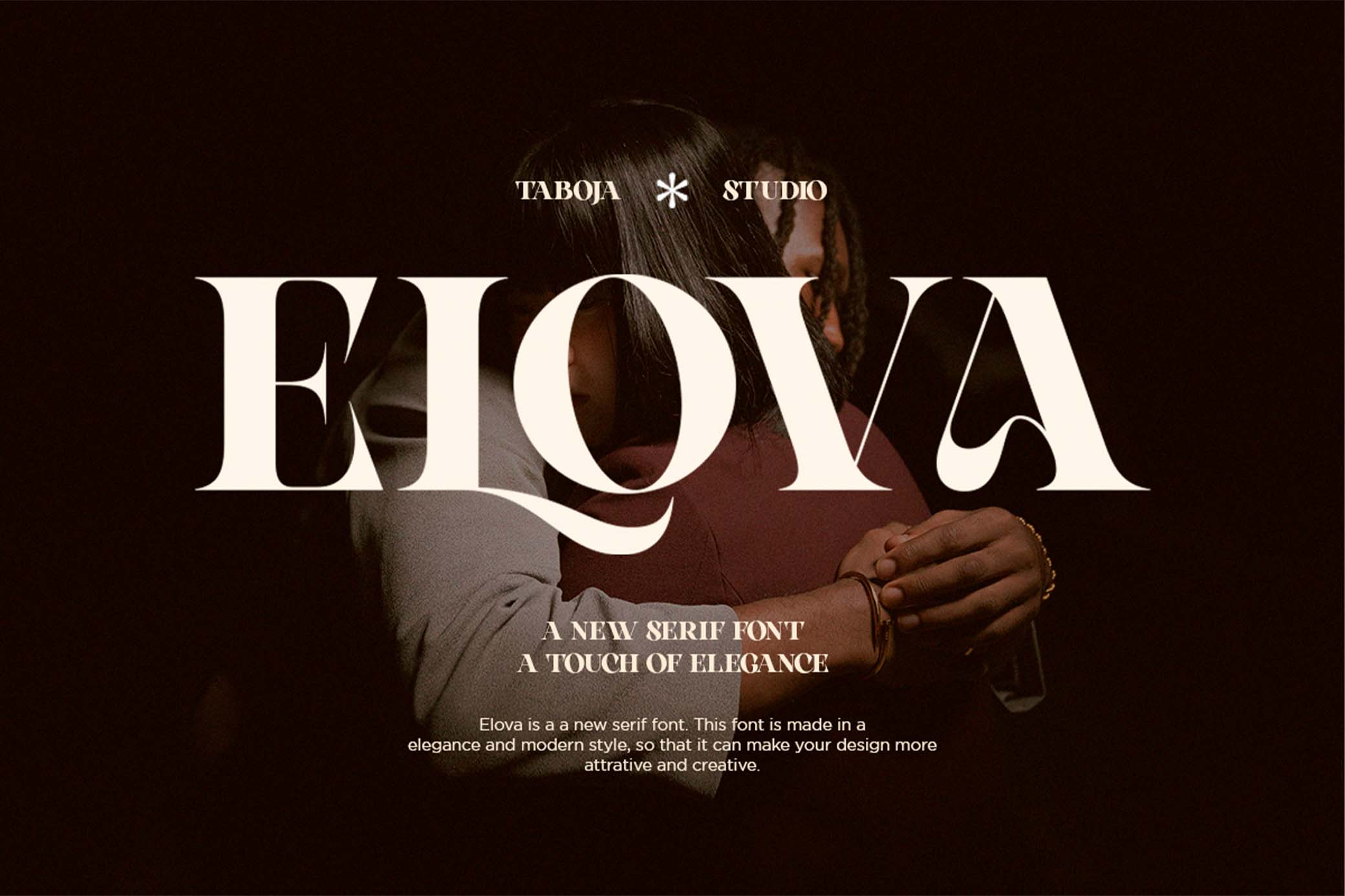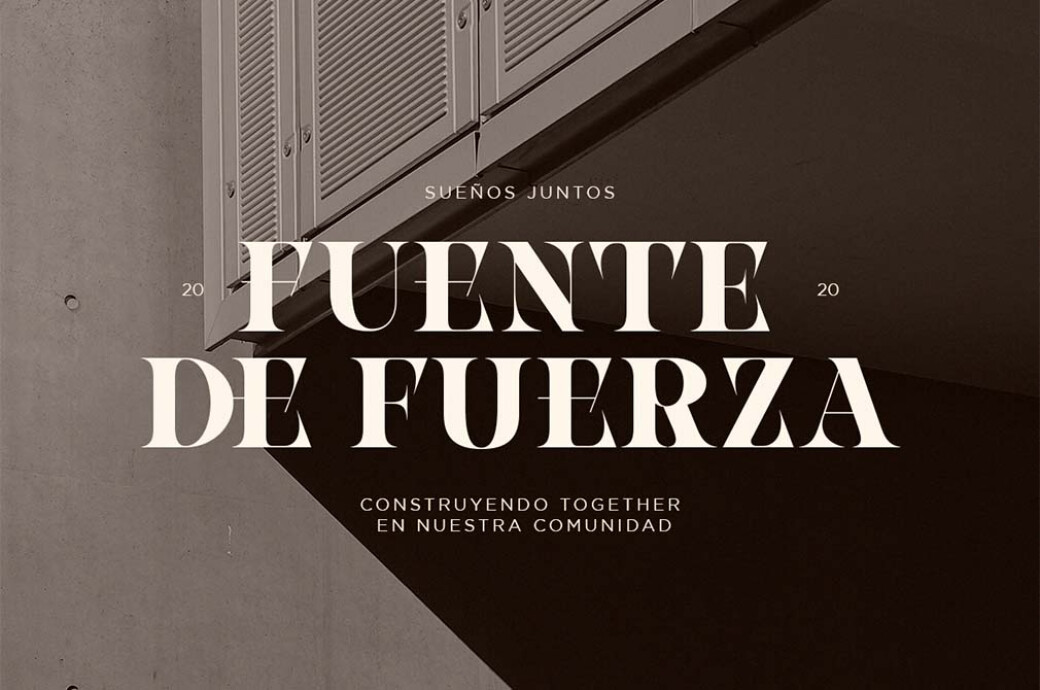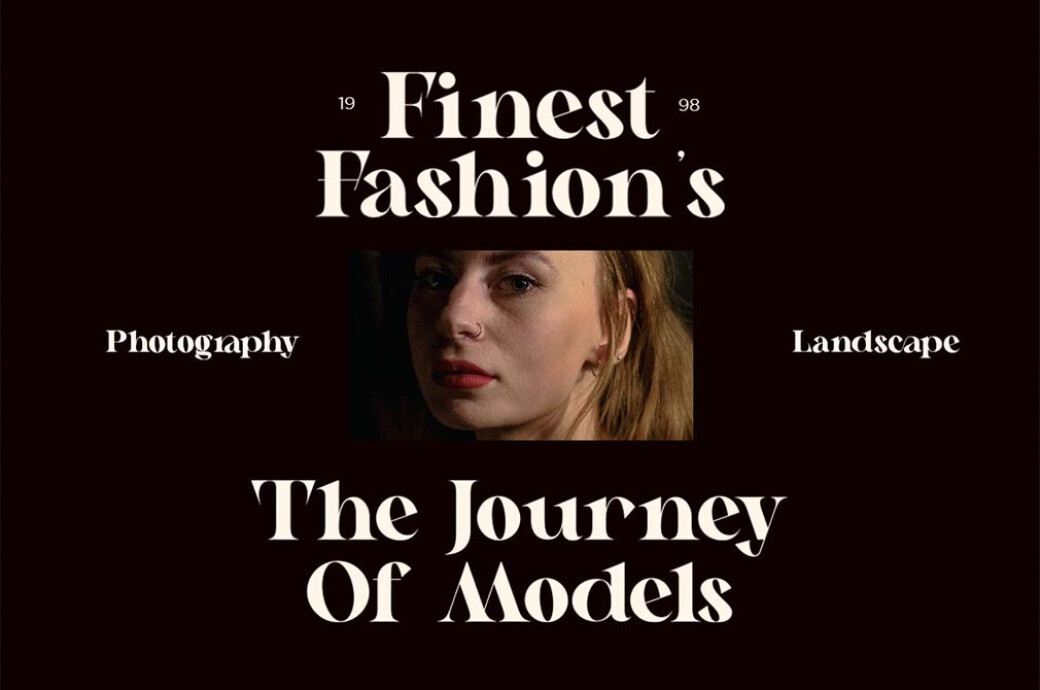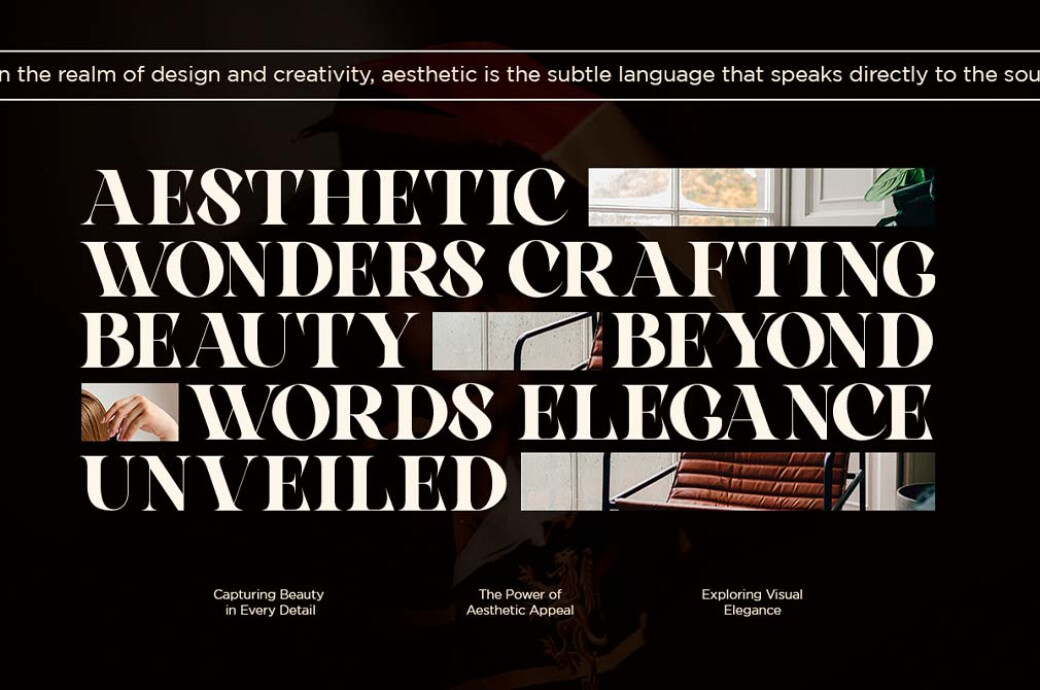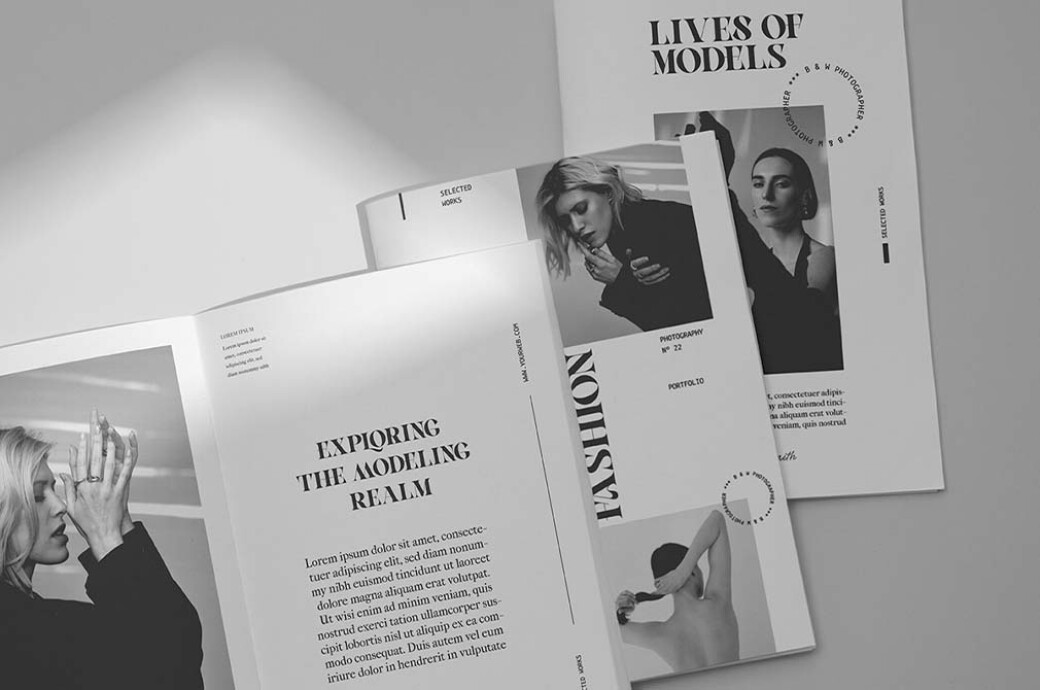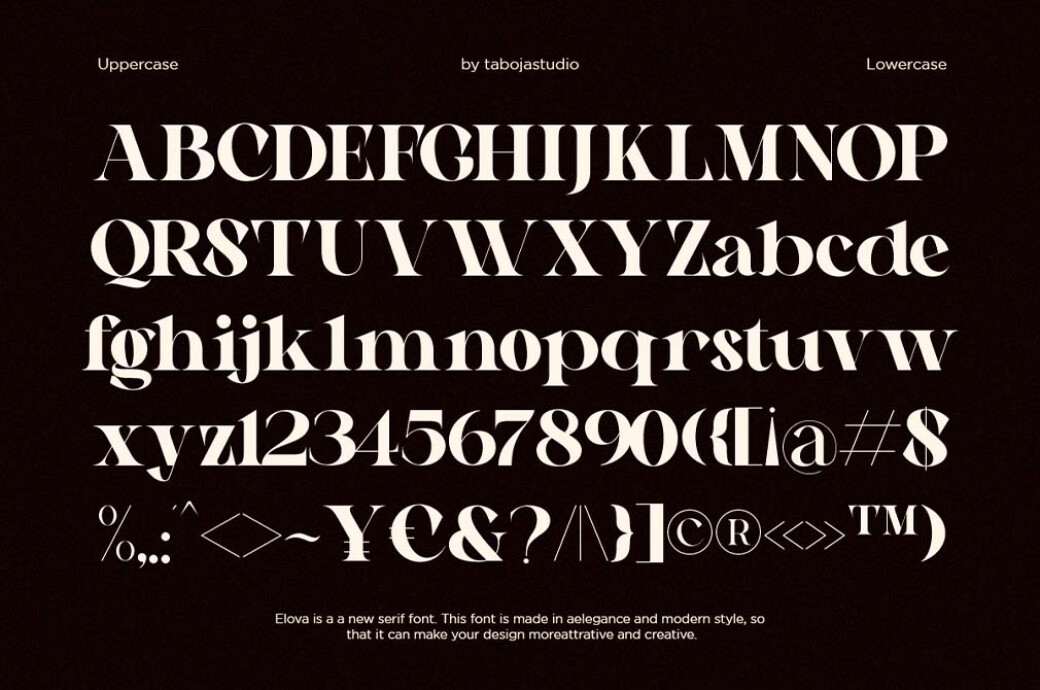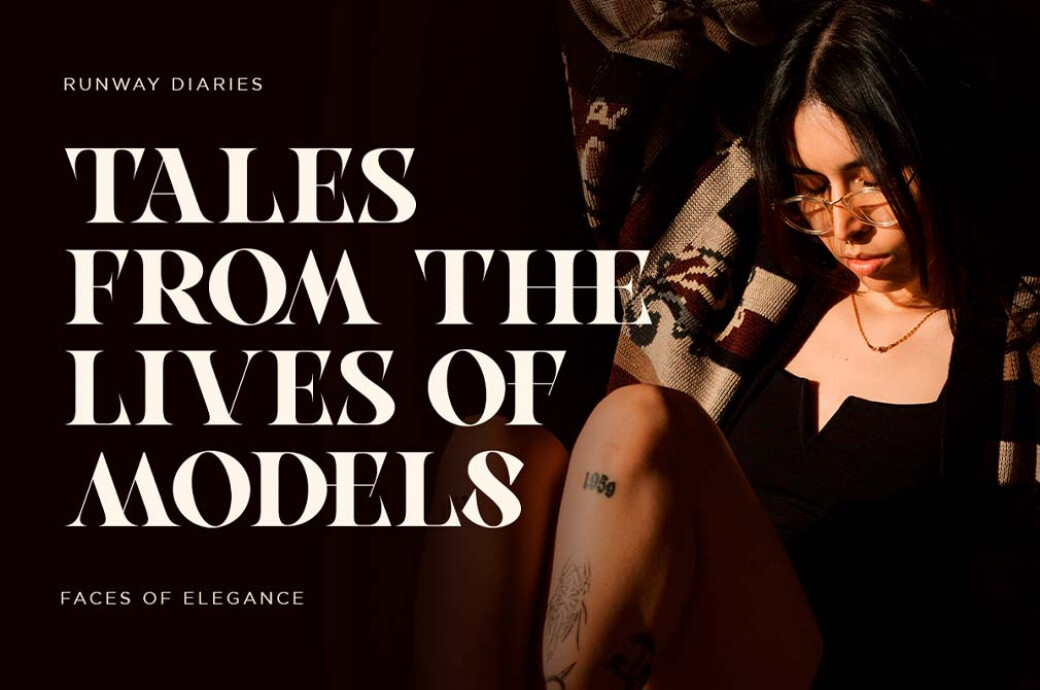
Elova | Elegant Serif Font
This font radiates vigor by merging sharp serifs and the softness of strokes. Steeped in quiet luxury, we have found a style to emphasize opulence to grab the spotlight in headings, delivering messages with a strong presence.
The serif includes alternates and ligatures that evoke a sense of grandeur and add variety to the presentation. Additionally, m****ultilingual s****upport and accented characters are included to reveal your look on design in foreign aesthetic endeavors. We recommend applying gilded text effects to cater to your elaborate sensibilities. Plunge into the elegance with an exploration of specially curated numerals and punctuations coming into play.